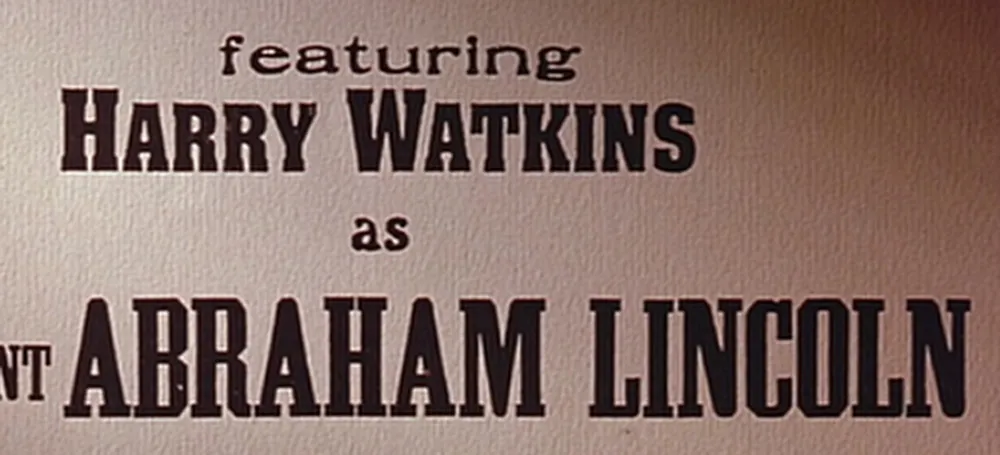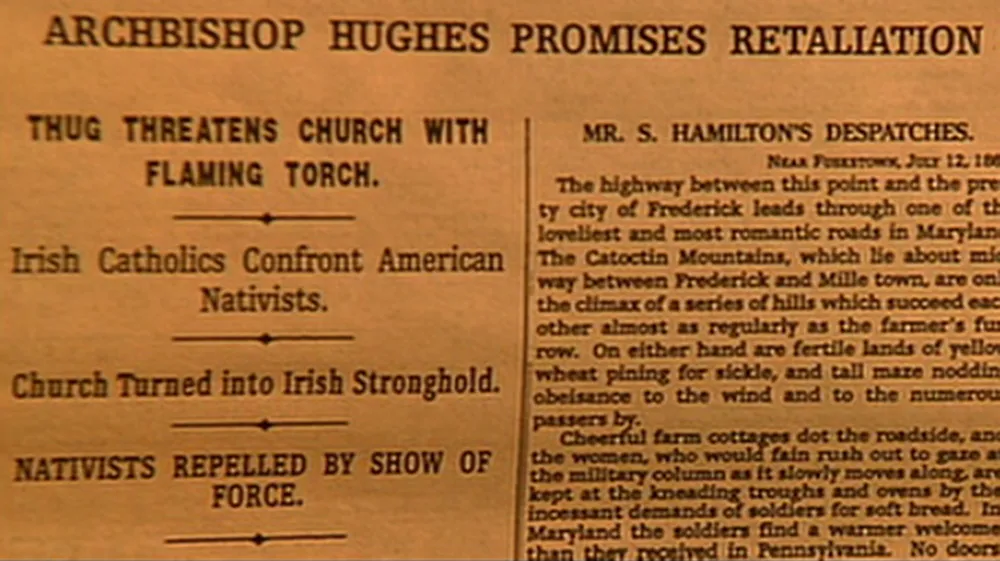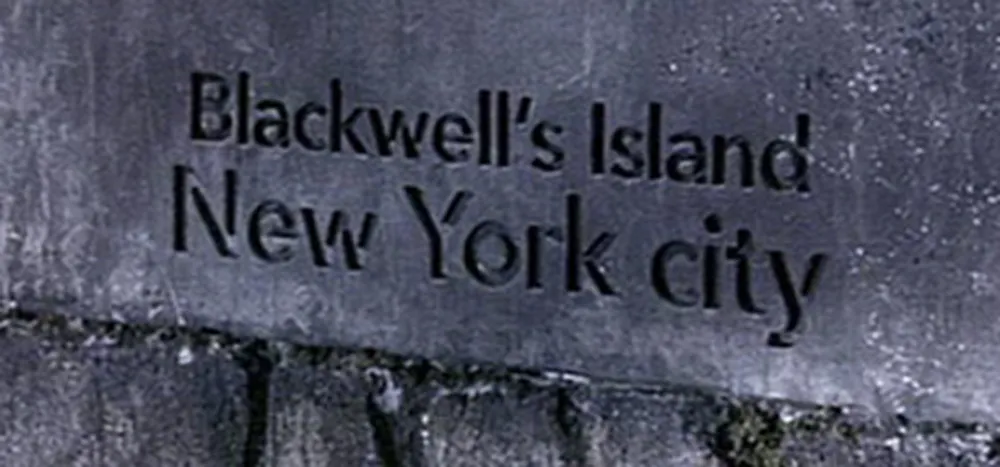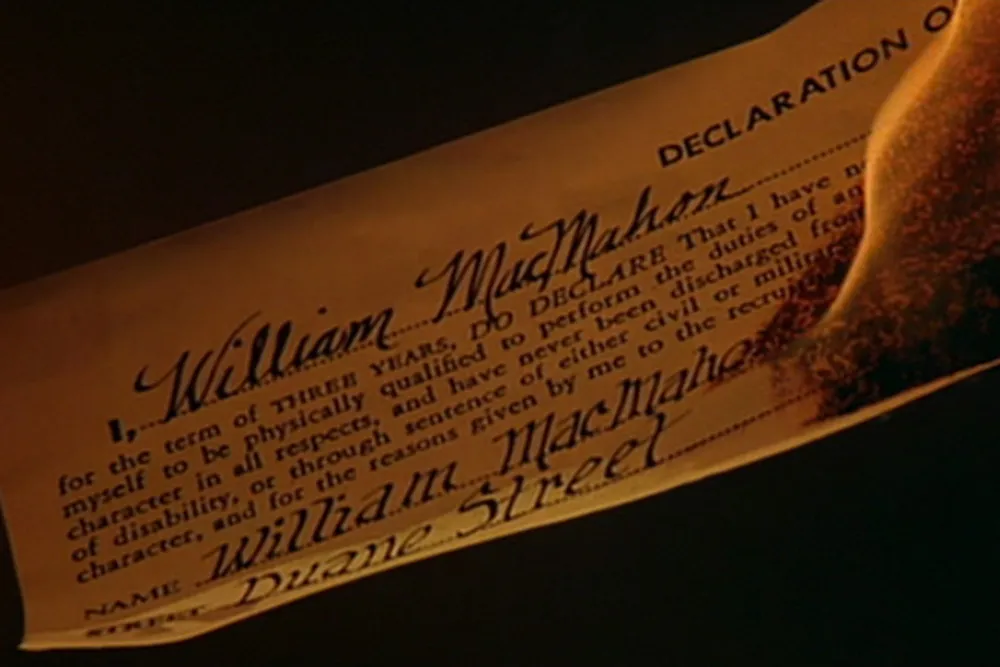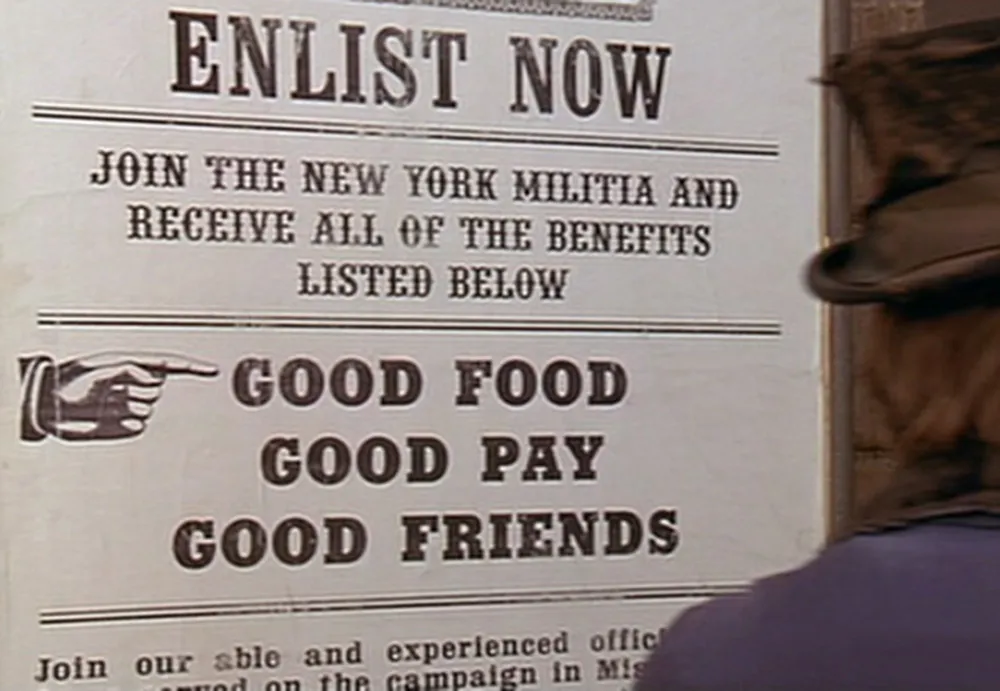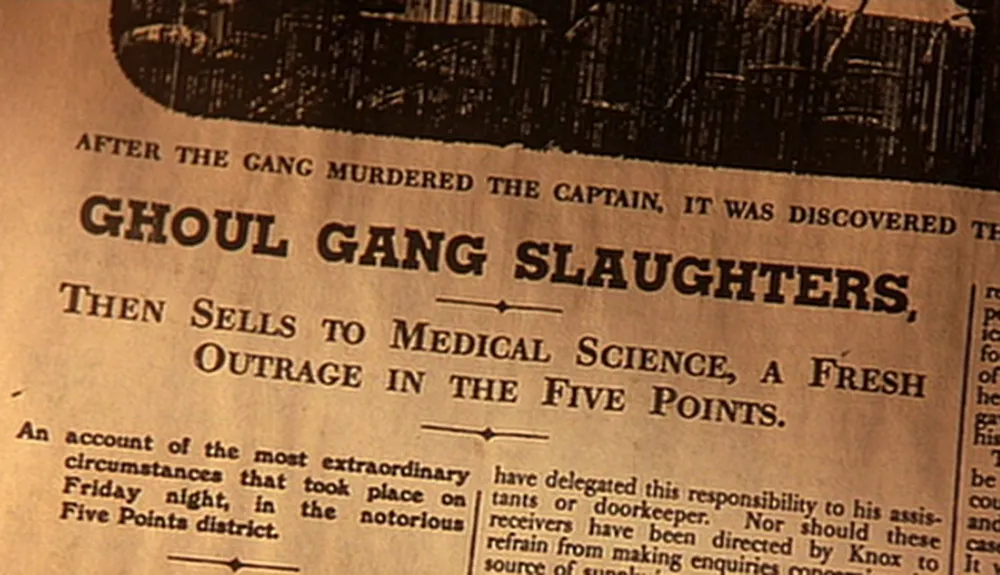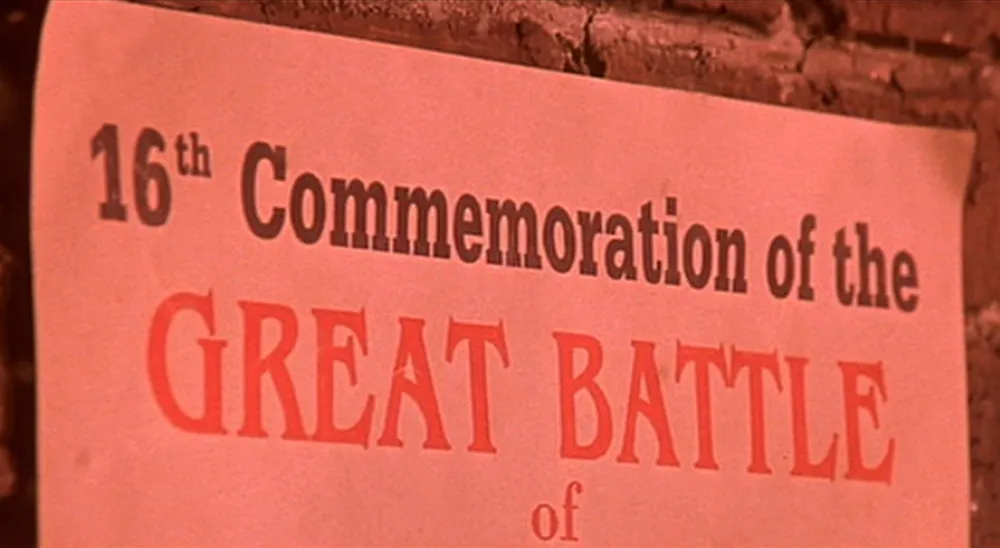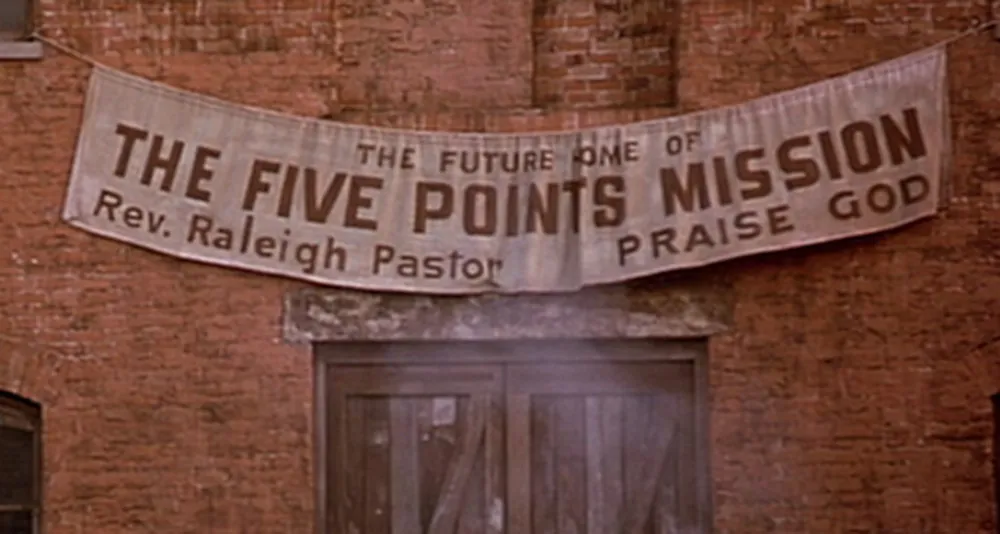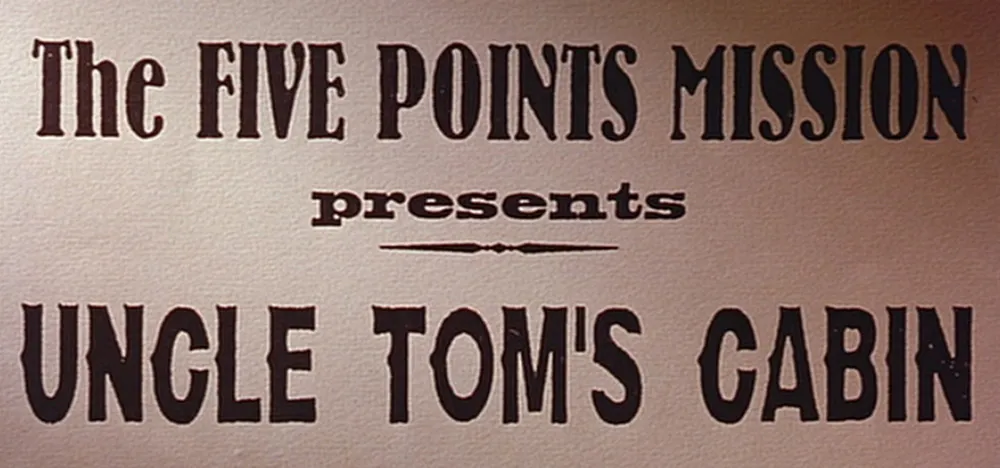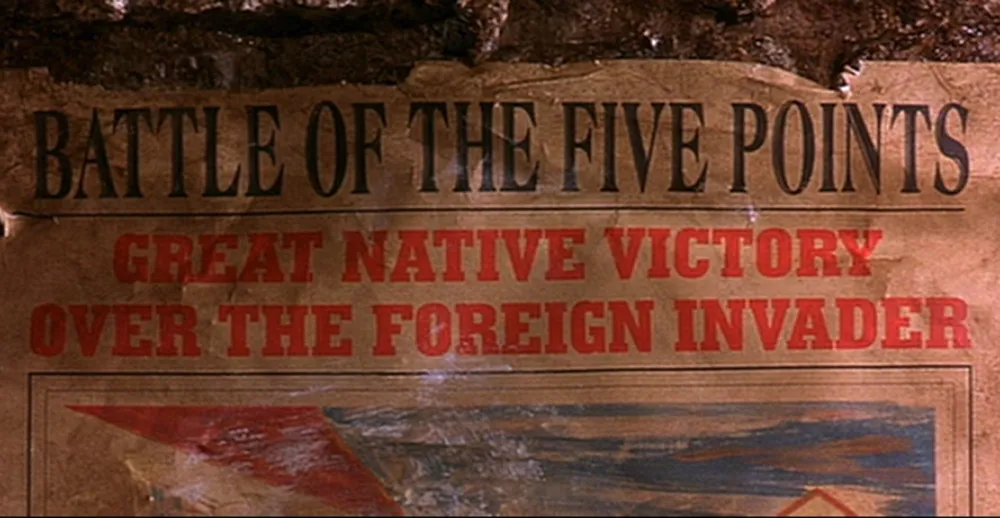
Gangs of New York
I’ve always had a rather vague grasp on the history of New York City. So, before taking a trip there this last summer, I rented Gangs of New York (Miramax, 2002), hoping to learn some of it. I realize the film is not perfectly historically accurate, but I really enjoyed watching it. Scorsese did a wonderful job with the story, the characters, and the setting, making me feel like I had stepped into New York City of the 1860s. However, as I’ve come to expect with Hollywood movies, the typography was a bit off base.
For the most part, the type choices in Gangs of New York are plausible in terms of general feel. In many cases, common 19th century wood type designs are used, especially on posters, appropriately enough, though some of these look a bit too distressed, as if they were enlarged from microfilm copies or something. Most of the signs on buildings were right on the money. I thought this one was pretty good:
On the other hand, the movie is riddled with anachronistic type choices. Here are some examples from posters:
Here we see Bernhard Antique (1937) with two overly-distressed-looking 19th century wood types. Notice the straight apostrophe in the bottom line. Straight apostrophes and quote marks did not exist in typefaces until the advent of digital type in the 1980s. It’s a computer thing, not a typographic thing.
More wood type, but the second line (“Harry Watkins”) is set in Aachen (1969).
This one is set in URW Egyptienne (1950s) and ITC Benguiat (1977). Benguiat is a particularly poor choice since it is based on the Art Nouveau style of around 1900. Benguiat shows up on a couple more posters in the movie.
This is better, but not 100% historically correct. The bold font next to the pointing finger is Memphis (1930s).
Here we have some artificially condensed Americana (1967) with Memphis (1930s) again. You couldn’t distort type by condensing it like this back then. It was made of wood or metal, after all.
Now this is interesting. Avenir (1988) carved in marble. Few typefaces say “1860s” less than Avenir, which means “future” in French. It would actually be quite an evocative choice for a film set in the early 2000s. It’s very popular these days.
On to the printed ephemera, starting with newspapers:
Good old (actually not so old) Memphis, again, paired with Caledonia (1940). I should point out that the way they set the type here looks right; it’s just the font choices that are wrong. There were typefaces back then that looked generally similar to these to the untrained eye, but not exactly like these.
The same comments go for this one. The sans serif is Helvetica (1957) and the serif font is Egyptienne (1956).
This one I love. It’s a civil war draft registration ticket. The heading is set in Futura (1927) and the text is set in Garamond (c. 1920). Now, you might say Garamond should be okay because the original Garamond types were from the 1500s, which predates the 1860s. The fact is, they were only used in the 1500s and similar types were not seen again until they were revived around 1920. I’m not sure about that handwriting at the bottom, either.
So. A great movie, but a bit flawed in the typographic department. Three out of five stars for use of type.